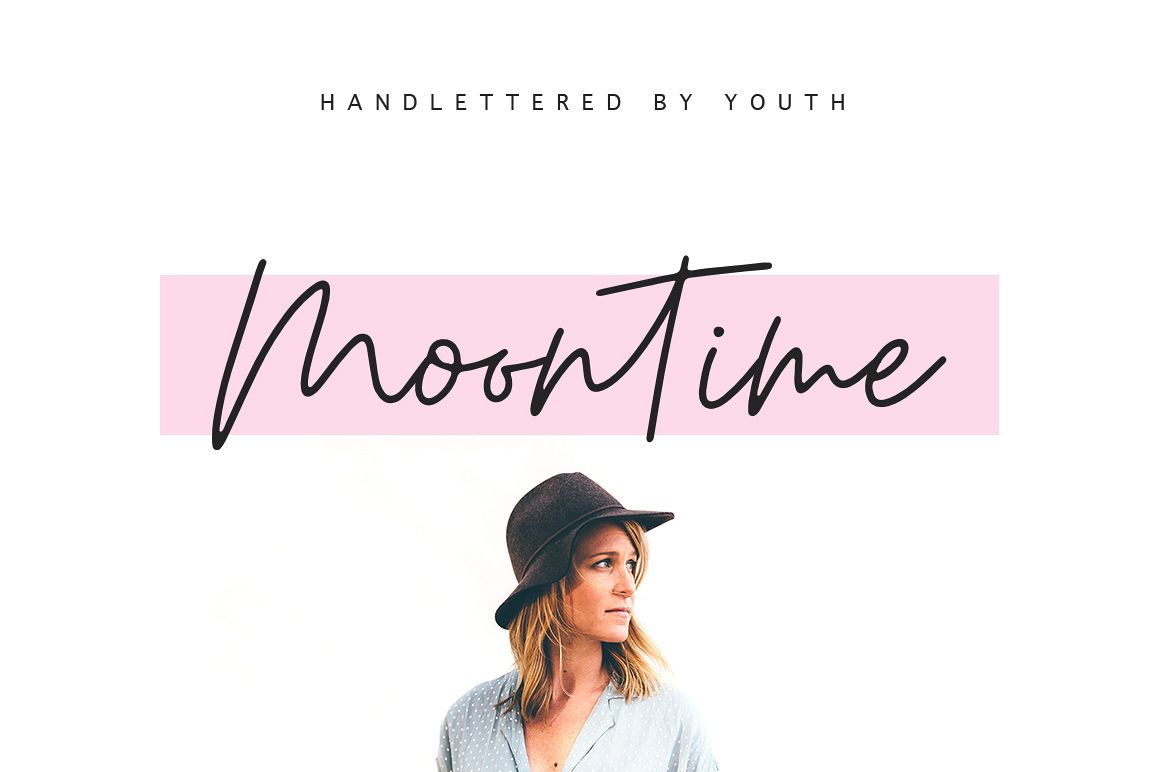
MOONTIME handwritten script with swashes
This modern calligraphy script has been attentively written, with gentle curves to produce a font thats completely distinctive and original. It contains a full set of lower & uppercase letters, a large range of punctuation, numerals, and multilingual support. Perfect for adding a elegant and unique touch to your lettering projects and branding
Also with their help, you can create a Wedding lettering or beautiful frame for your home. Or just use for your small, book covers, stationery, marketing, magazines and more.
• Support ALL European Languages
Love the font but unfortunately the end swash on the letter "r" doesn't work if typing "er-" or "or-".